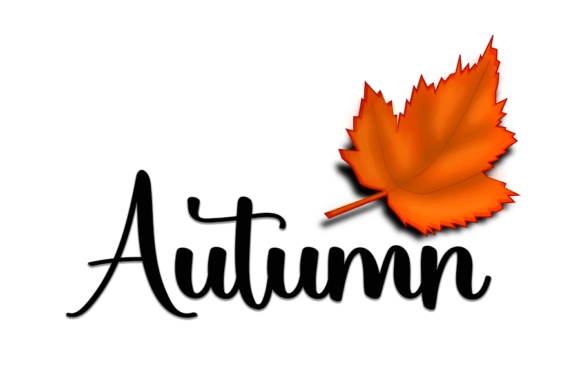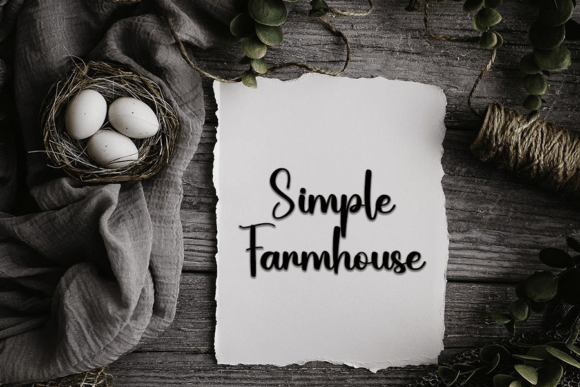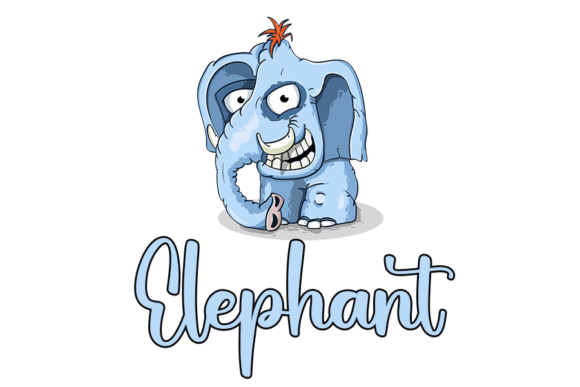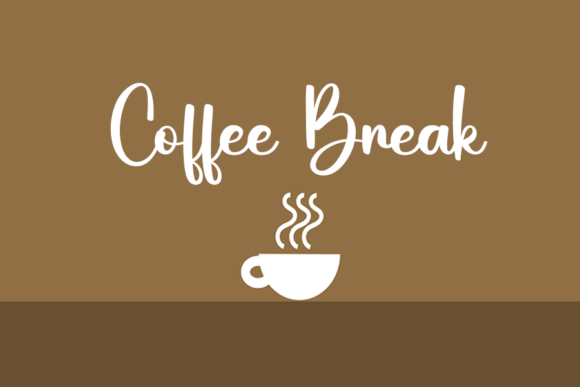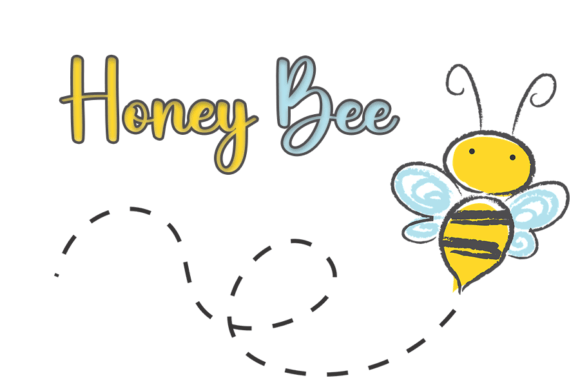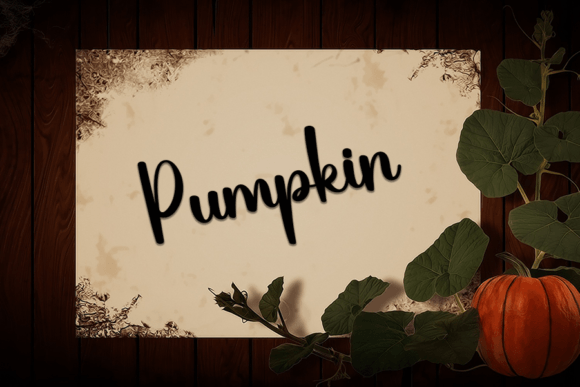
Coffee Break Font: Elevate Your Designs with a Delicate Handwritten Touch
Are you tired of using the same old fonts in your designs? Do you want to add a touch of uniqueness and personality to your work? Look no further than the Coffee Break Font, a delicate handwritten font carefully crafted for a cool and unique design. In this article, we’ll dive into the world of Coffee Break Font and explore its features, uses, and benefits for designers and crafters.
What is Coffee Break Font?
Coffee Break Font is a beautiful, handwritten font that exudes elegance and sophistication. Its delicate strokes and curves make it perfect for adding a touch of whimsy and charm to any design. Whether you’re working on a letter, invitation, food product, title, or any other project, Coffee Break Font is sure to make it stand out.
Features of Coffee Break Font
Coffee Break Font boasts a range of features that make it a versatile and desirable font for designers and crafters. Some of its key features include:
- Delicate Handwritten Style: Coffee Break Font is carefully crafted to mimic the look and feel of handwritten text, giving your designs a personal and unique touch.
- Unique and Quirky: This font is perfect for designers who want to add a touch of whimsy and charm to their work.
- Highly Versatile: Coffee Break Font can be used for a wide range of projects, from letters and invitations to food products and titles.
- Easily Readable: Despite its delicate nature, Coffee Break Font is highly readable, making it perfect for body text and headings.
Uses of Coffee Break Font
Coffee Break Font is an incredibly versatile font that can be used in a variety of contexts. Here are some ideas to get you started:
- Invitations and Stationery: Add a touch of elegance and sophistication to your invitations, greeting cards, and stationery with Coffee Break Font.
- Food and Beverage Branding: Use Coffee Break Font to create unique and eye-catching labels, packaging, and branding for food and beverage products.
- Titles and Headings: Add a touch of whimsy and charm to your titles and headings with Coffee Break Font.
- Blogging and Social Media: Use Coffee Break Font to create engaging and visually appealing blog posts, social media graphics, and other online content.
Benefits of Using Coffee Break Font
So why choose Coffee Break Font for your designs? Here are just a few benefits of using this beautiful font:
- Stand Out from the Crowd: With Coffee Break Font, you can create unique and eye-catching designs that stand out from the crowd.
- Add a Personal Touch: This font’s handwritten style adds a personal and human touch to your designs, making them more relatable and engaging.
- Increase Readability: Coffee Break Font’s delicate strokes and curves make it highly readable, even at small sizes.
Tips for Using Coffee Break Font
Here are a few tips for getting the most out of Coffee Break Font:
- Pair with Other Fonts: Experiment with pairing Coffee Break Font with other fonts to create unique and visually appealing combinations.
- Use for Headings and Titles: Coffee Break Font is perfect for headings and titles, where its delicate style can really shine.
- Experiment with Colors: Try using Coffee Break Font with different colors and textures to add depth and interest to your designs.
In conclusion, Coffee Break Font is a beautiful and versatile font that’s perfect for designers and crafters looking to add a touch of uniqueness and personality to their work. With its delicate handwritten style, high readability, and ease of use, this font is sure to become a favorite in your design arsenal.